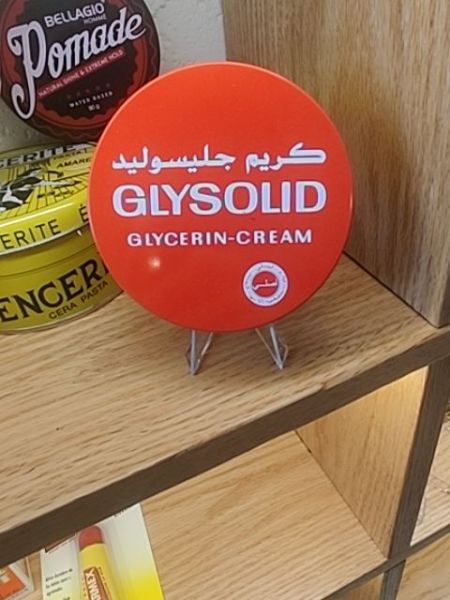
Glysolid
Glysolid is a glycerin-based cream designed to provide intensive moisturizing for dry and stressed skin.
1975
Germany
The typography utilizes a bold, sans-serif font for the product name 'GLYSOLID', emphasizing clarity and strength. The use of all capital letters ensures maximum readability and impact. The secondary text, 'GLYCERIN-CREAM', follows the same sans-serif style, maintaining consistency across the packaging.
The packaging consists of a round red tin with white lettering. It is simple yet striking, making it easily recognizable on a shelf. The design is minimalistic, highlighting the brand name prominently.
- Glysolid is known for high glycerin content, which aids in deep skin hydration.
- The cream is often recommended for very dry and rough skin areas.
- It is popular in many countries for its soothing properties and effective results.